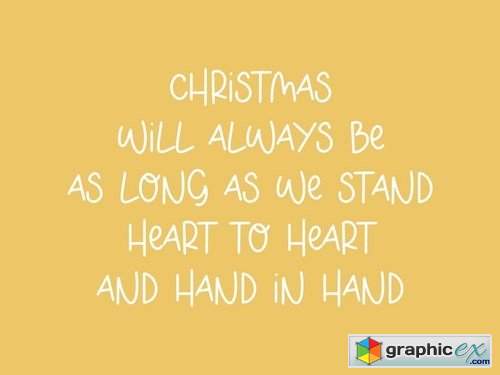
Blinky Season Handwriting Font
BLINKY SEASON is perfect for product packaging, branding project, megazine, social media, wedding, or just used to express words above the background.